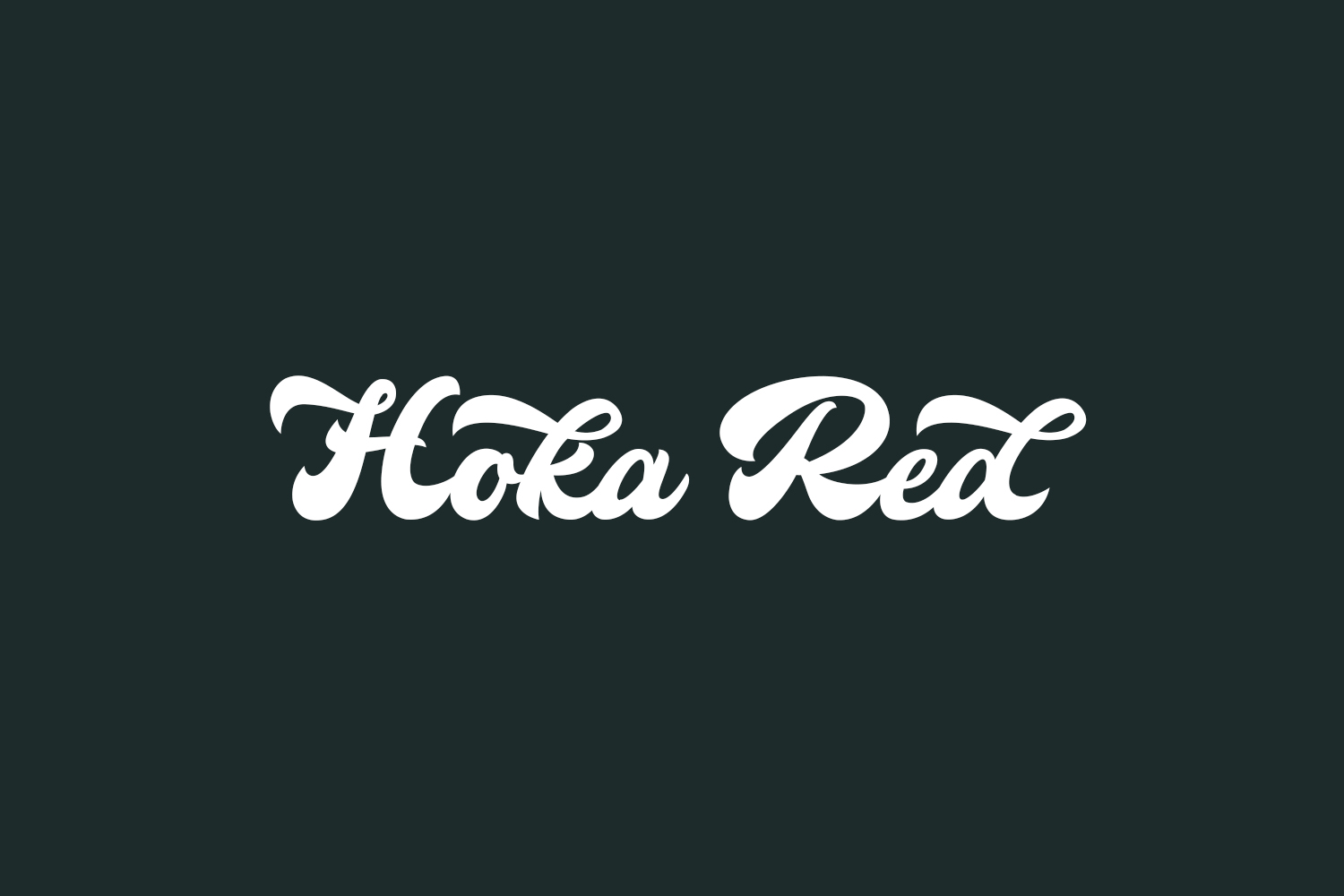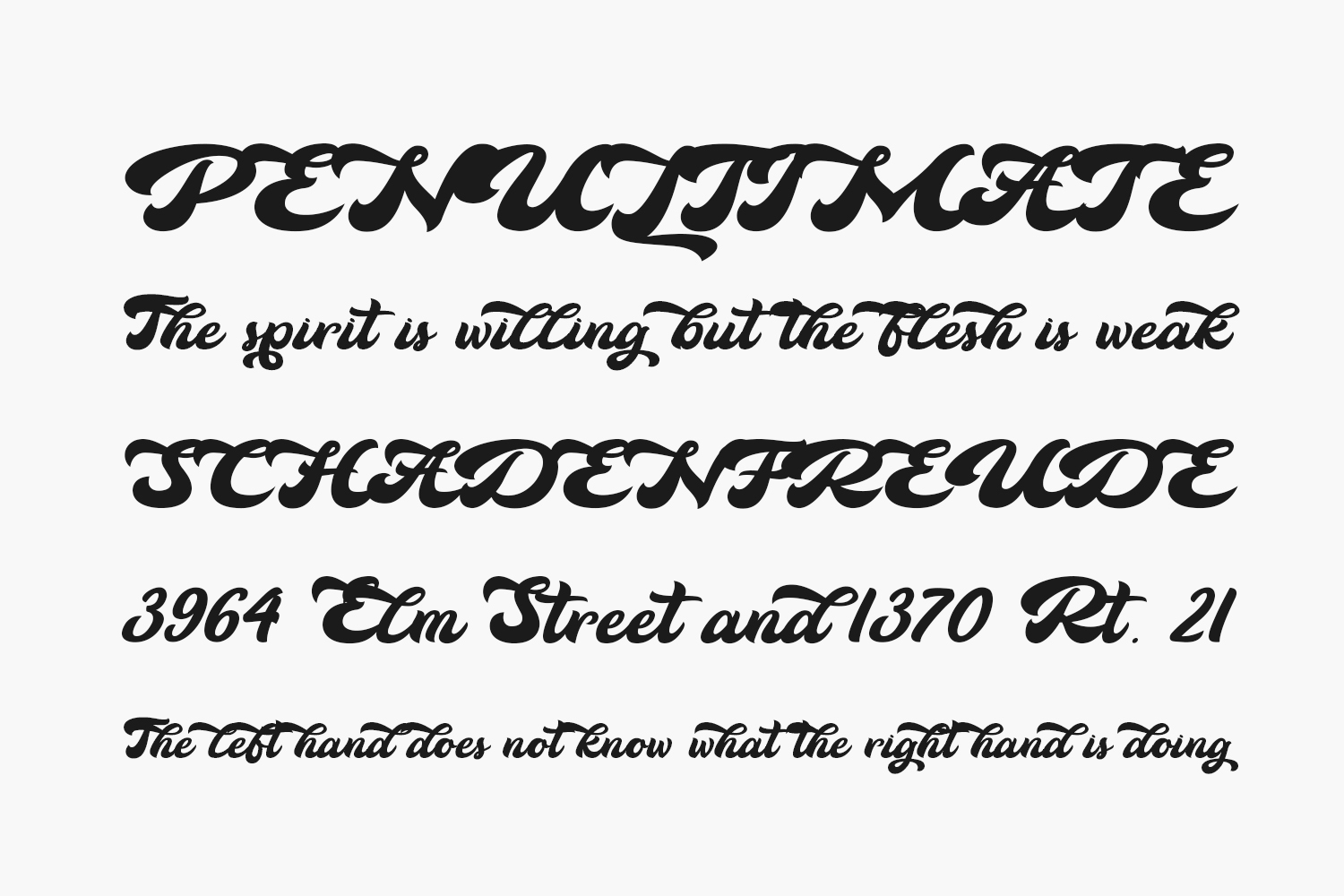
Hoka Red Free Font is a Script & Handwritten font. It looks stunning on (wedding invitations, thank you cards, quotes, greeting cards, logos, business cards) and any other design that needs a handwritten touch. Hoka Red Free Font was designed by Typhoon Type™ and is free for personal use only. Please purchase the full version for commercial use.